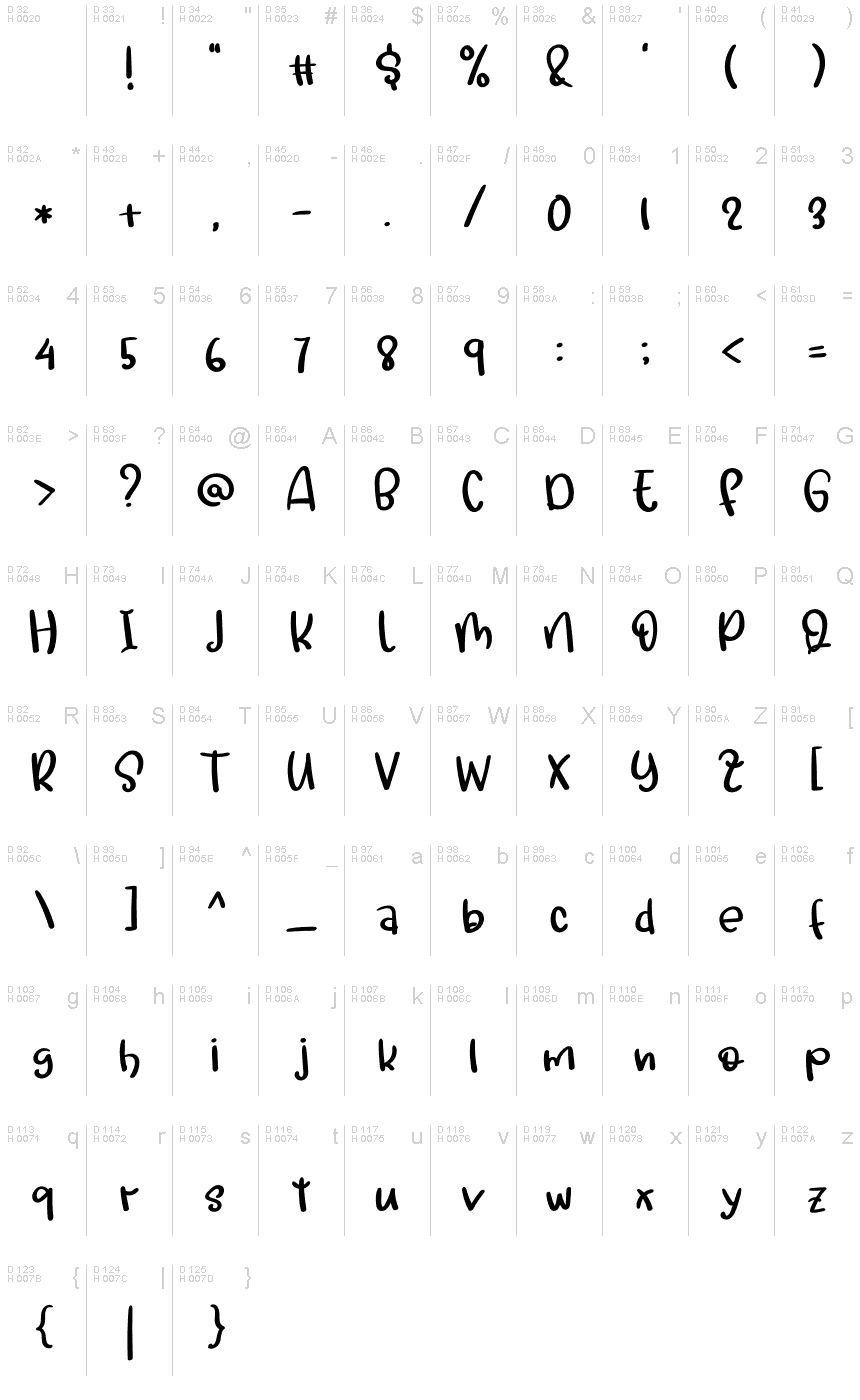
Playground
Playground is a simple, cute, and readable script font designed by Erik Studio. Friendly and natural, this font is perfect for children themed designs, especially when combined with bright colors.